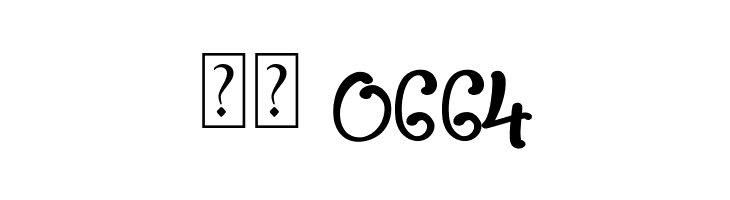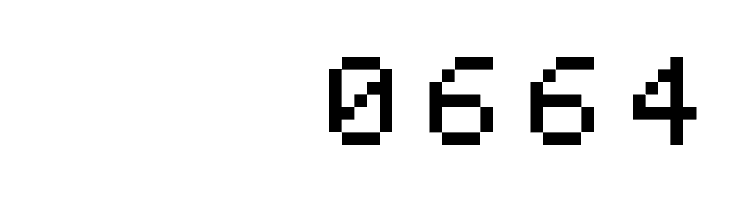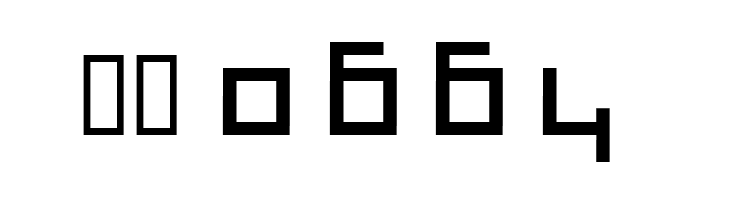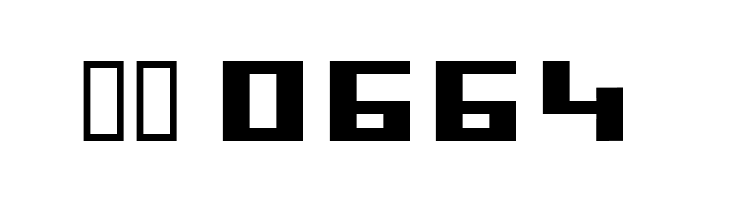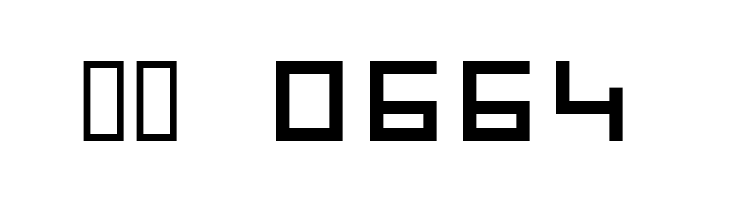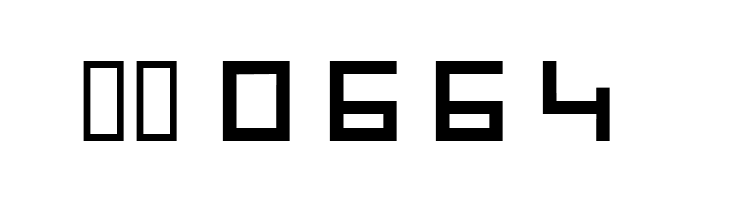
An elegant, flowing script font with sophisticated cursive letterforms.
A playful, handwritten font with smooth, rounded edges and a casual style.
A playful, bold font with rounded edges and a whimsical style.
A dynamic and flowing script font with elegant, interconnected strokes.
A pixelated, monospaced typeface with a retro digital aesthetic.
A playful and whimsical script font with flowing, interconnected letters.
A bold, playful script font with interconnected characters and smooth curves.
A bold, pixelated font with a retro, digital aesthetic.
A monospaced font with a digital, retro aesthetic and geometric design.
A pixelated, blocky font with a retro digital style.
A pixelated, geometric font with a retro digital aesthetic.
A bold, angular font with a futuristic and geometric style.
A decorative, italicized font with cultural motifs and bold, flowing strokes.
A graceful, cursive font with a fluid, handwritten style.
A decorative font inspired by Arabic calligraphy with bold strokes and intricate details.
A classic cursive font with elegant, flowing script and interconnected letters.
An elegant serif font with a classic italic style and smooth, flowing curves.
A playful, casual handwritten font with smooth, flowing letterforms.
A playful, casual handwritten font with smooth, flowing lines.
A bold, geometric font with a futuristic, arcade-inspired design.
An elegant script font with fluid, continuous strokes and a sophisticated style.
A bold, geometric font with a modern, condensed style.
A modern, italicized font with bold strokes and a sleek, condensed design.
A modern, geometric font with sharp, angular lines and a futuristic style.
An elegant, flowing script font with a classic calligraphic style.
A cursive font with elegant loops and smooth transitions, perfect for formal uses.
A graceful and fluid script font with a handwritten style.
A modern sans-serif font with clean lines and excellent readability.
A modern, bold sans-serif font with clean lines and excellent readability.
A bold, italic sans-serif font with a modern and dynamic style.
A modern, italic sans-serif font with clean lines and excellent legibility.
A playful, rounded font with bold, smooth curves and a modern aesthetic.
A flowing, elegant script font with a calligraphic style.
A cursive script font with elegant, flowing strokes and ornate details.
Casual handwritten script font.